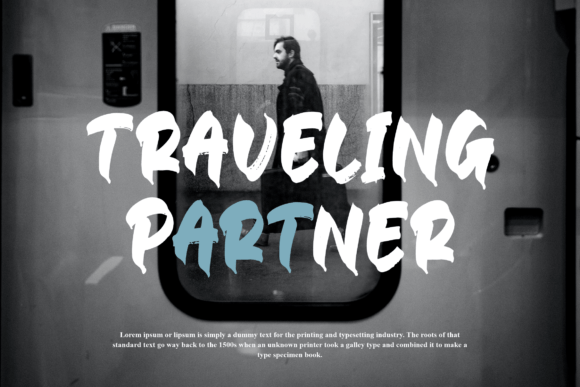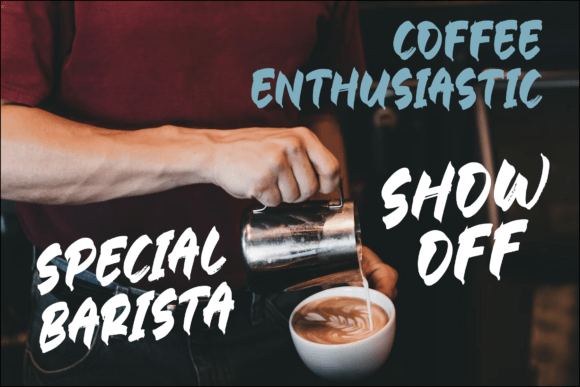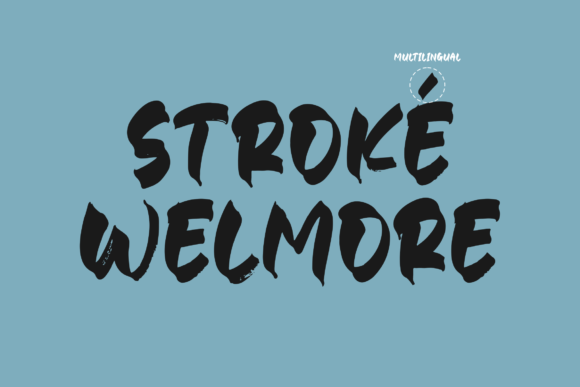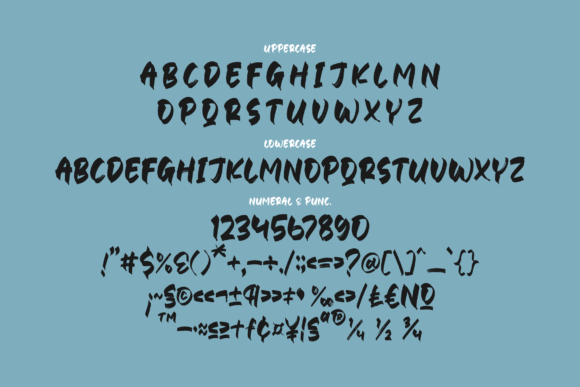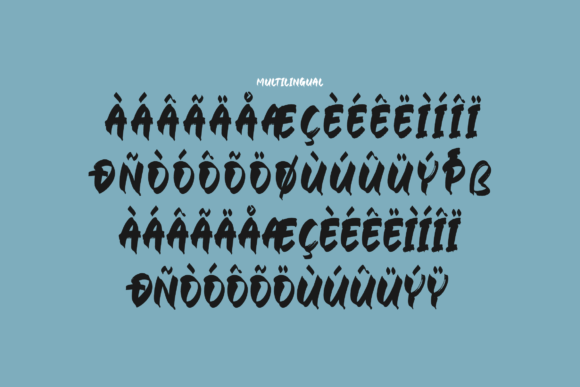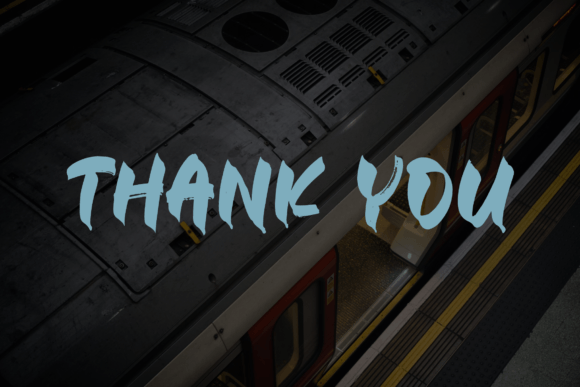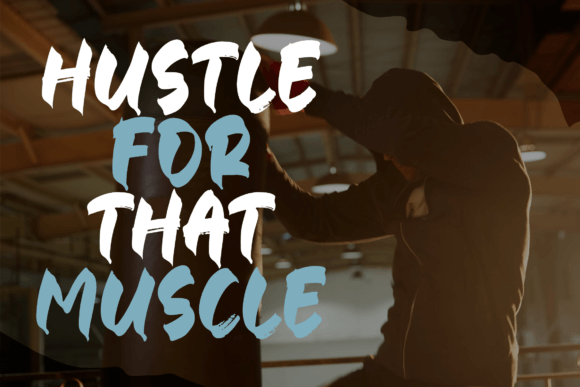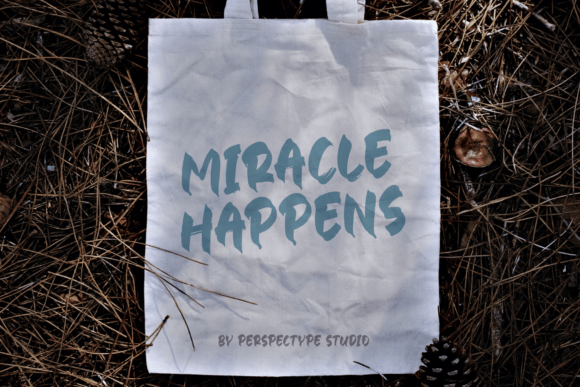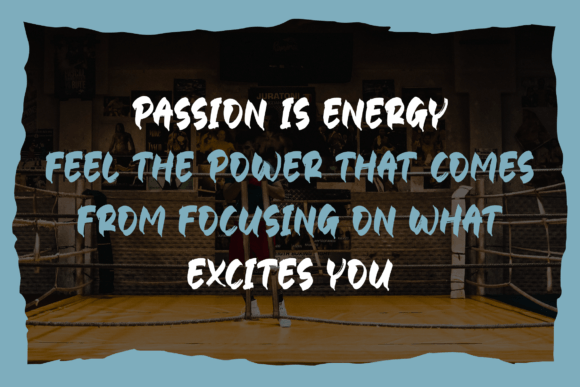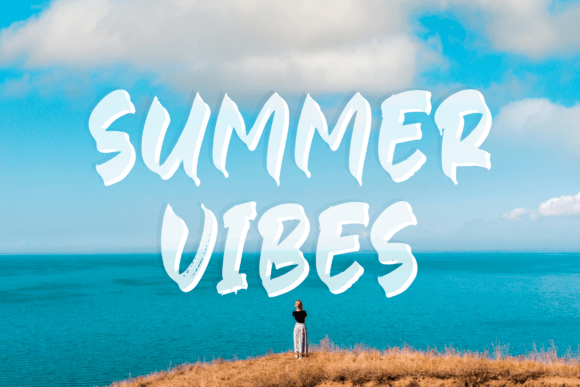
Welmore Font
About Welmore Font
Welmore, a contemporary brush handwritten font, emerges as a versatile and stylish choice for a plethora of design applications. Its modern aesthetic makes it suitable for logos, branding projects, homeware designs, product packaging, mugs, quotes, posters, shopping bags, T-shirts, book covers, name cards, invitation cards, greeting cards, labels, photography, watermarks, special events, and more. Welmore adds a beautiful script taste to all your creative projects.
The allure of Welmore lies in its modern brush strokes, which bring a sense of dynamism and freshness to your designs. The font’s handwritten style adds a personal touch, making it an ideal choice for projects that demand a unique and contemporary script.
Consider using Welmore for your branding endeavors, where a modern and stylish script can elevate the visual identity of your business. Whether it’s adorning product packaging, creating eye-catching posters, or designing T-shirts that make a statement, Welmore brings a beautiful script taste to the forefront.
The versatility of Welmore extends to various occasions, making it a suitable choice for special events such as weddings and celebrations. It adds an elegant touch to invitations, greeting cards, and labels, ensuring that your designs are both memorable and visually appealing.
Welmore’s adaptability is showcased in its application to digital and print materials alike. From social media quotes that demand a stylish script to homeware designs that require a contemporary touch, this font seamlessly integrates into diverse design contexts.
In essence, Welmore is not just a font; it’s a design asset that offers a modern and stylish script taste to your projects. With its versatility and contemporary brush strokes, Welmore becomes a valuable tool in your creative toolkit, allowing you to bring a touch of elegance and uniqueness to a wide array of design endeavors. Embrace the beauty of Welmore and let it enhance the visual appeal of your lovely projects.